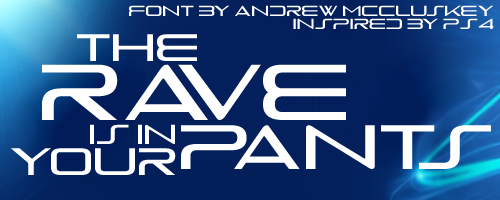
Preview and download The Rave Is In Your Pants Font. Created by NALGames in Techno Sci-fi styles with 100% Free license.
Inspired by the logo for PS4. Free for all use! |